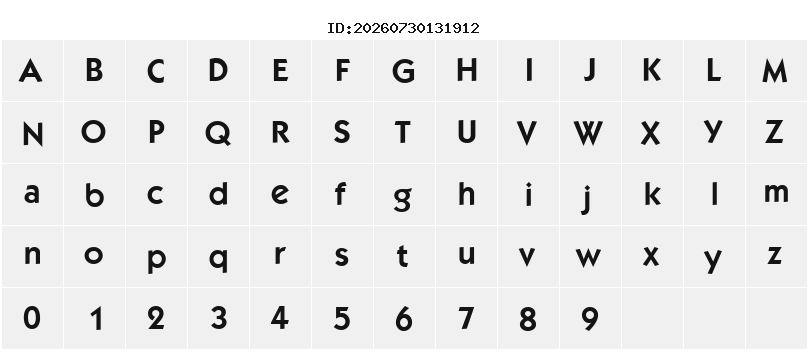
K792-Geometrical-Demi Preview
• Font Name: K792-Geometrical-Demi
• Full Font Name: K792-Geometrical-Demi-Regular
• Designer: SoftMaker Software GmbH
• Manufacturer: SoftMaker Software GmbH
About K792-Geometrical-Demi.ttf
K792-Geometrical-Demi.ttf is a modern, elegant sans-serif font designed for ultimate readability and visual harmony. Perfect for branding, headlines, web design, and print materials.